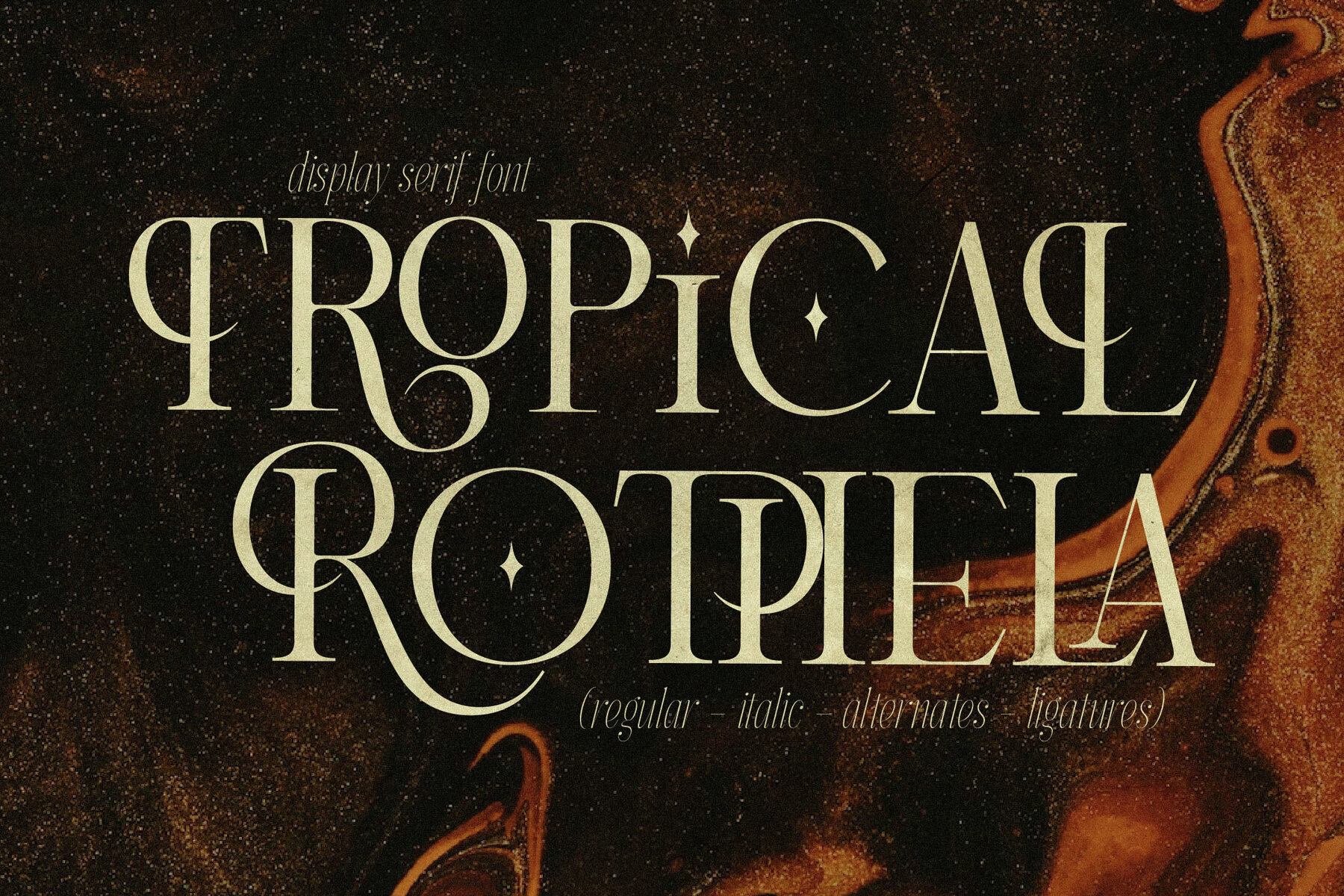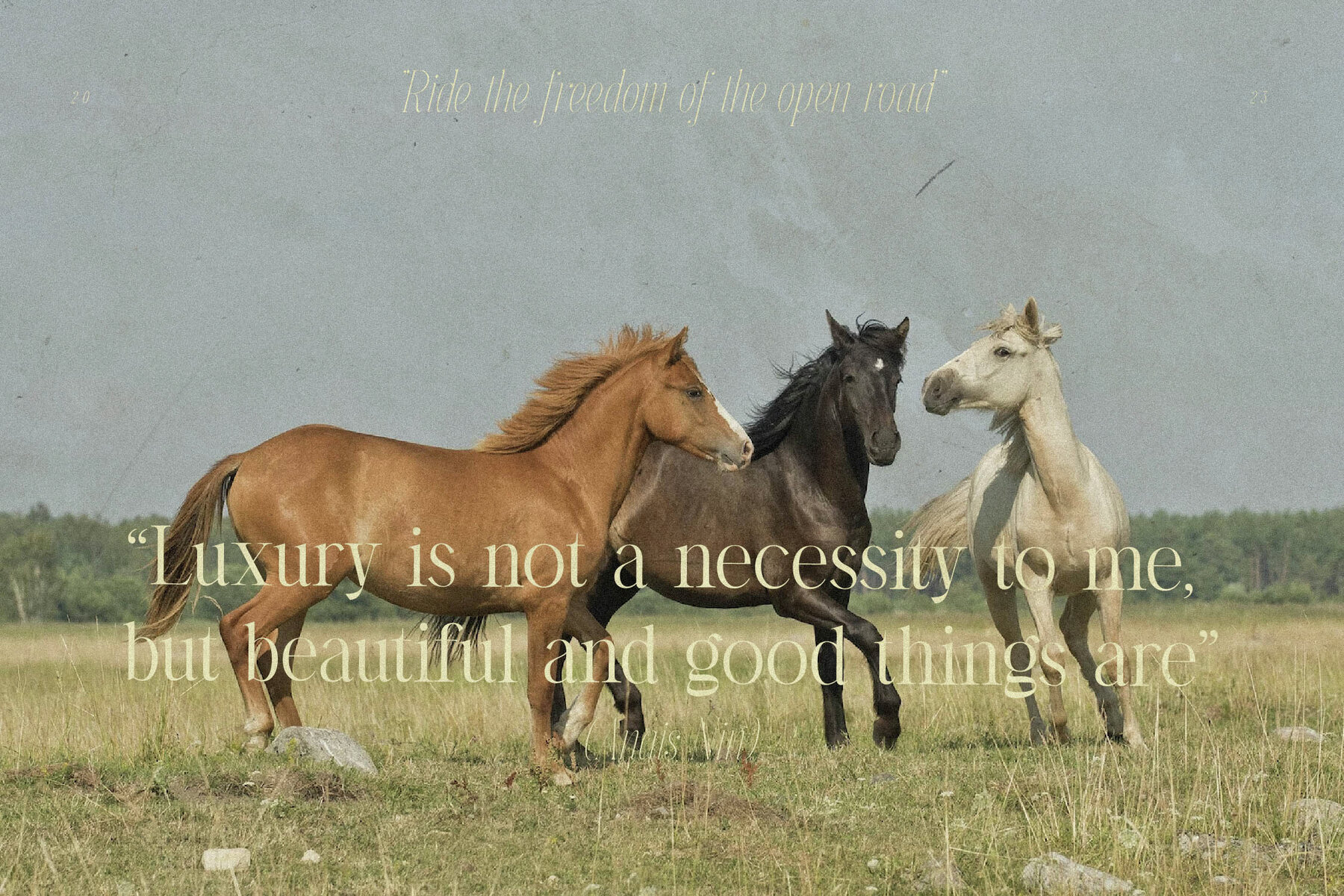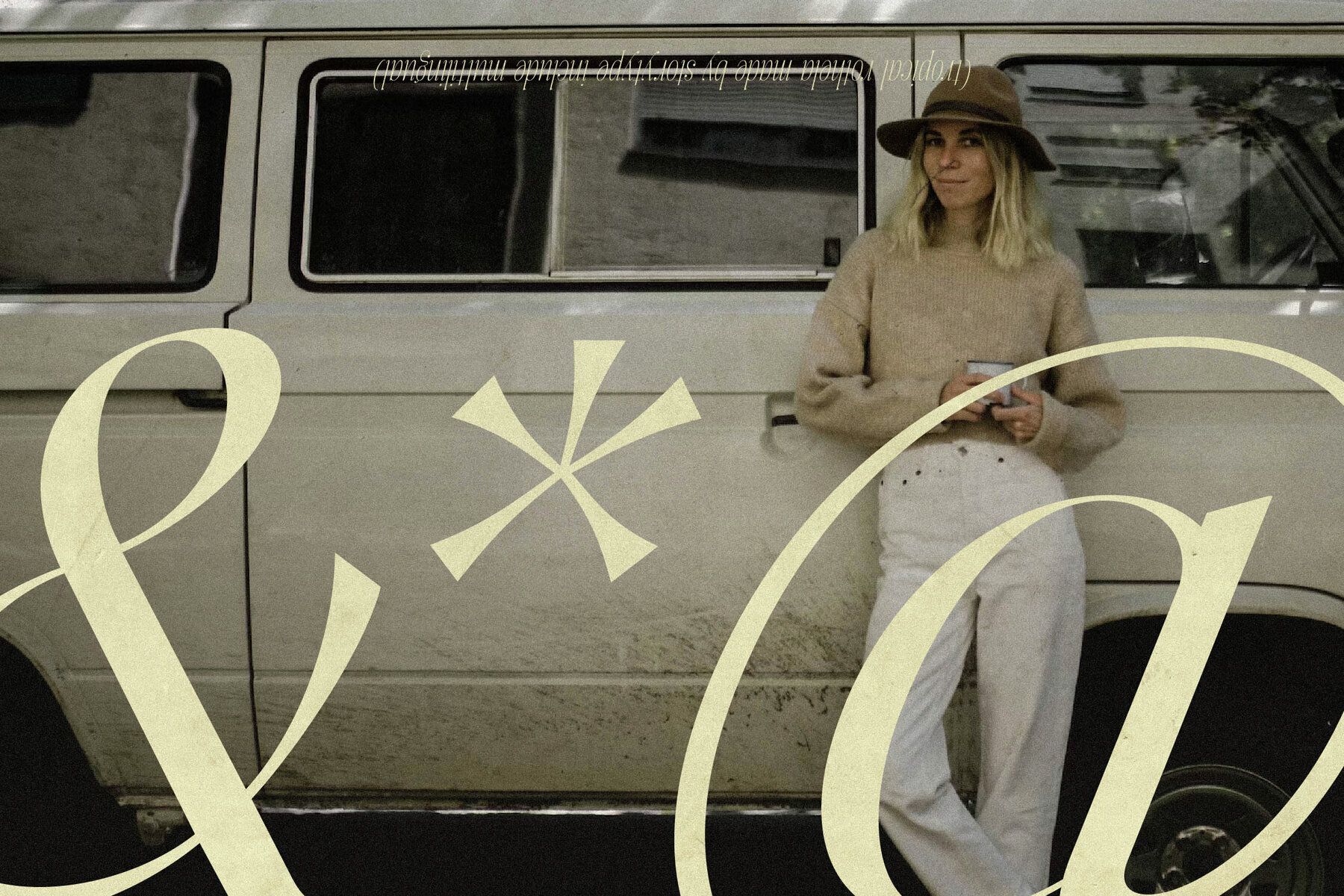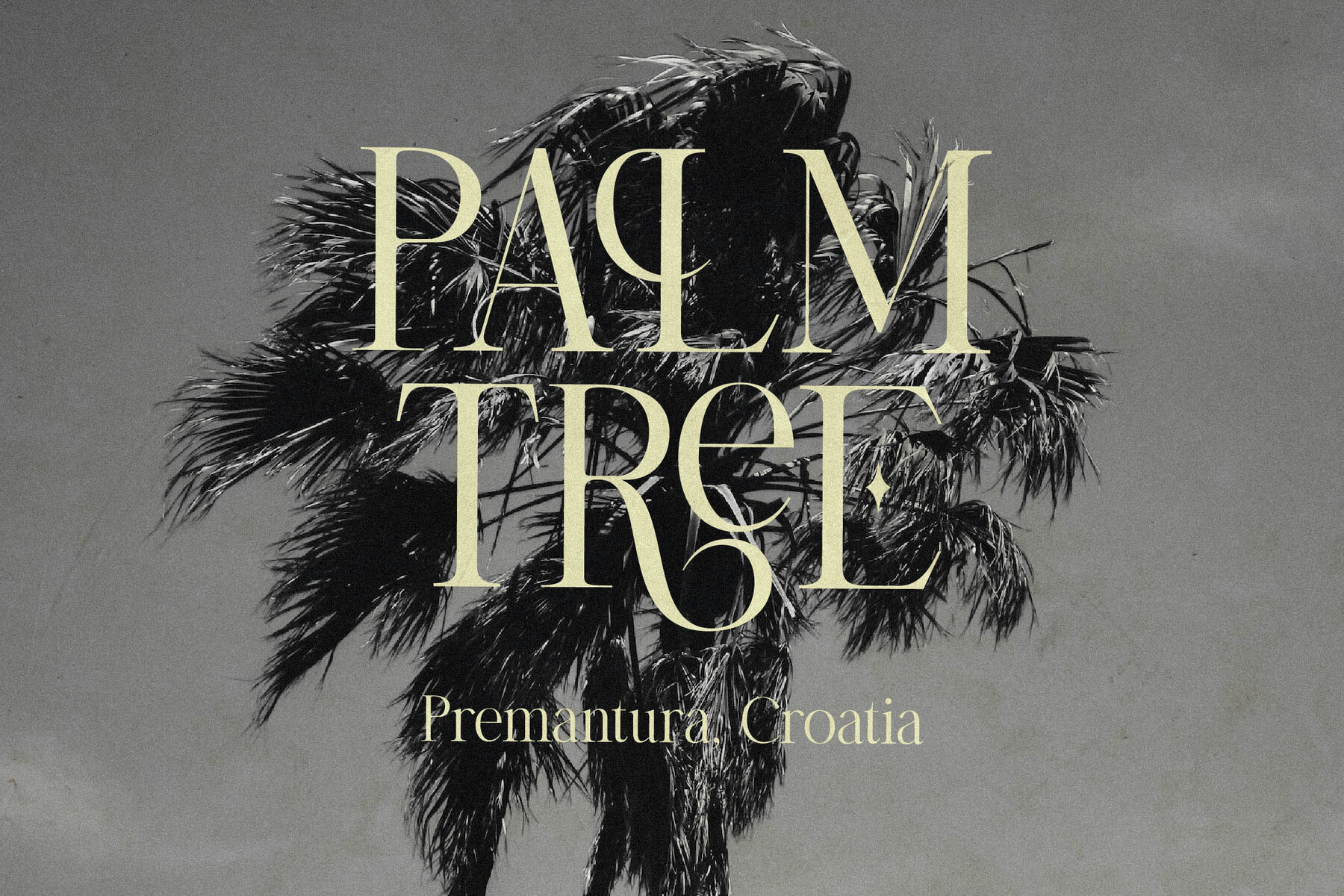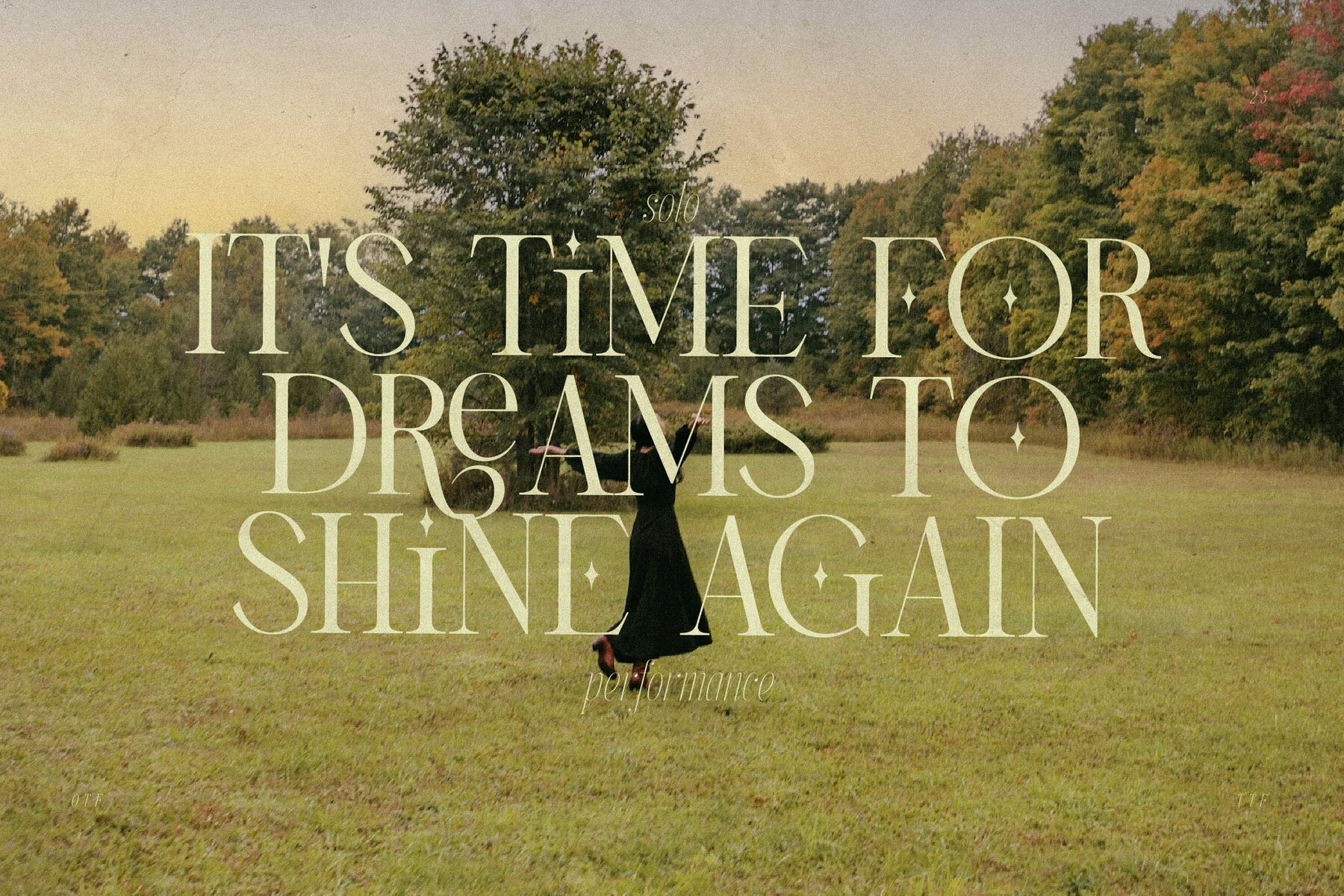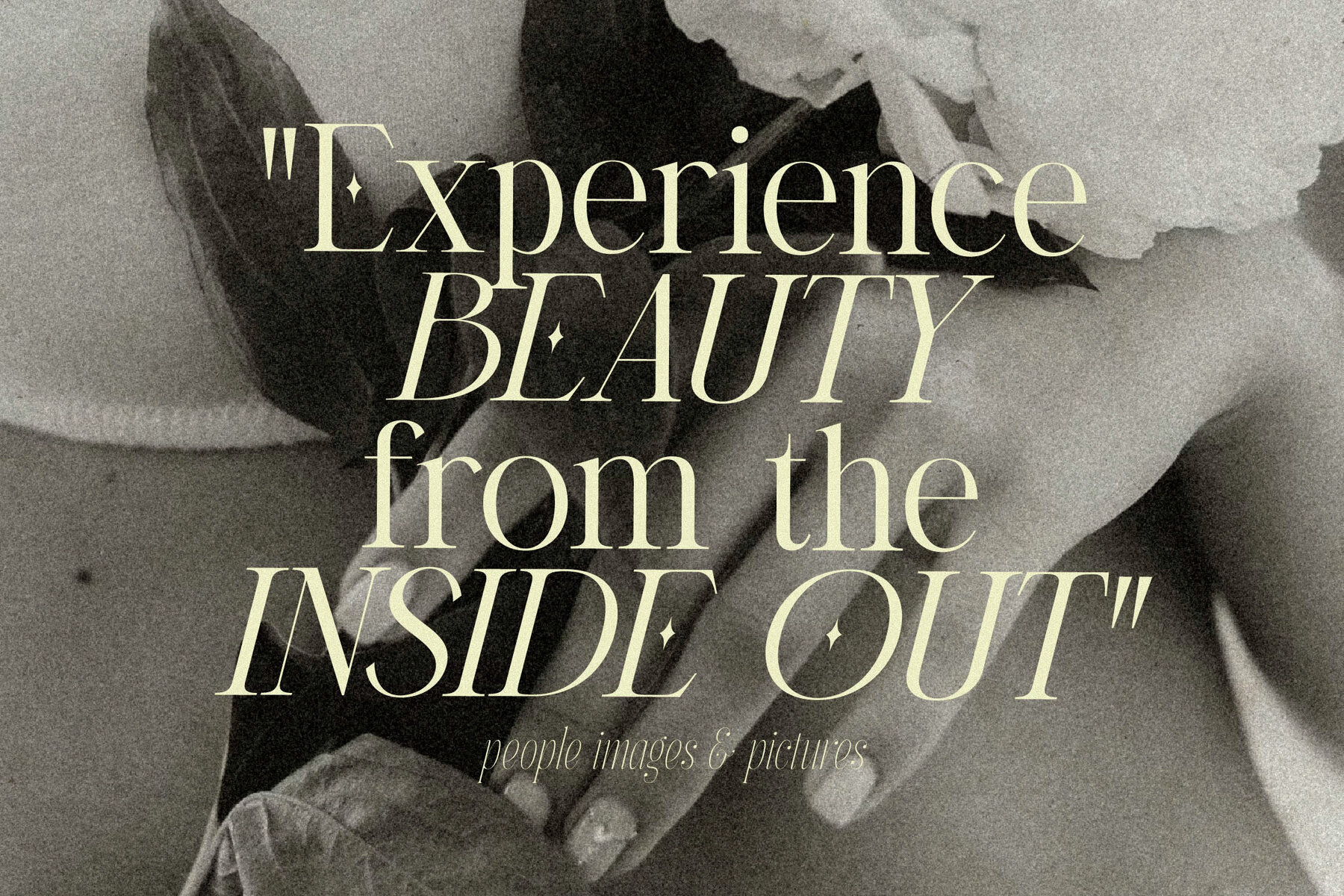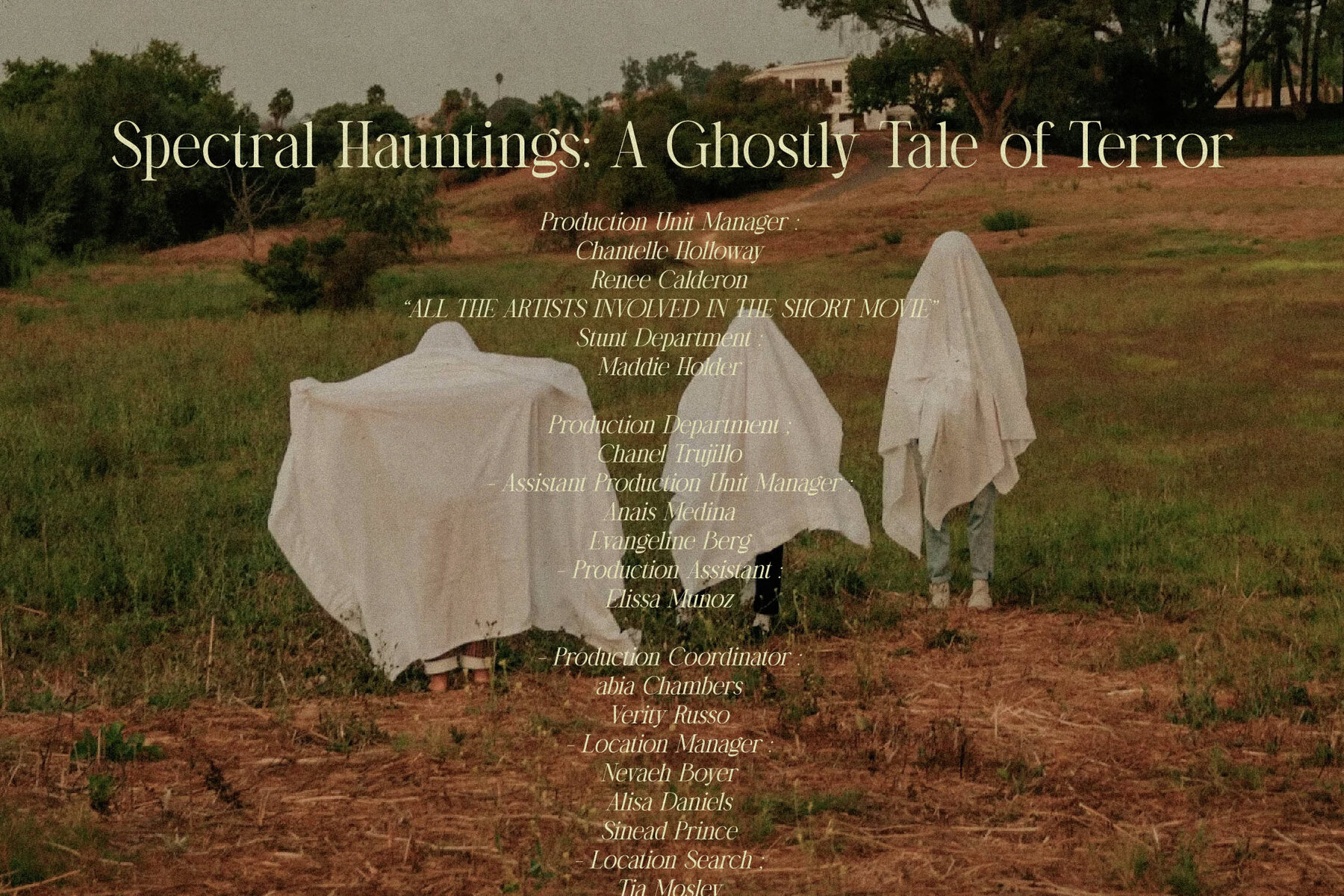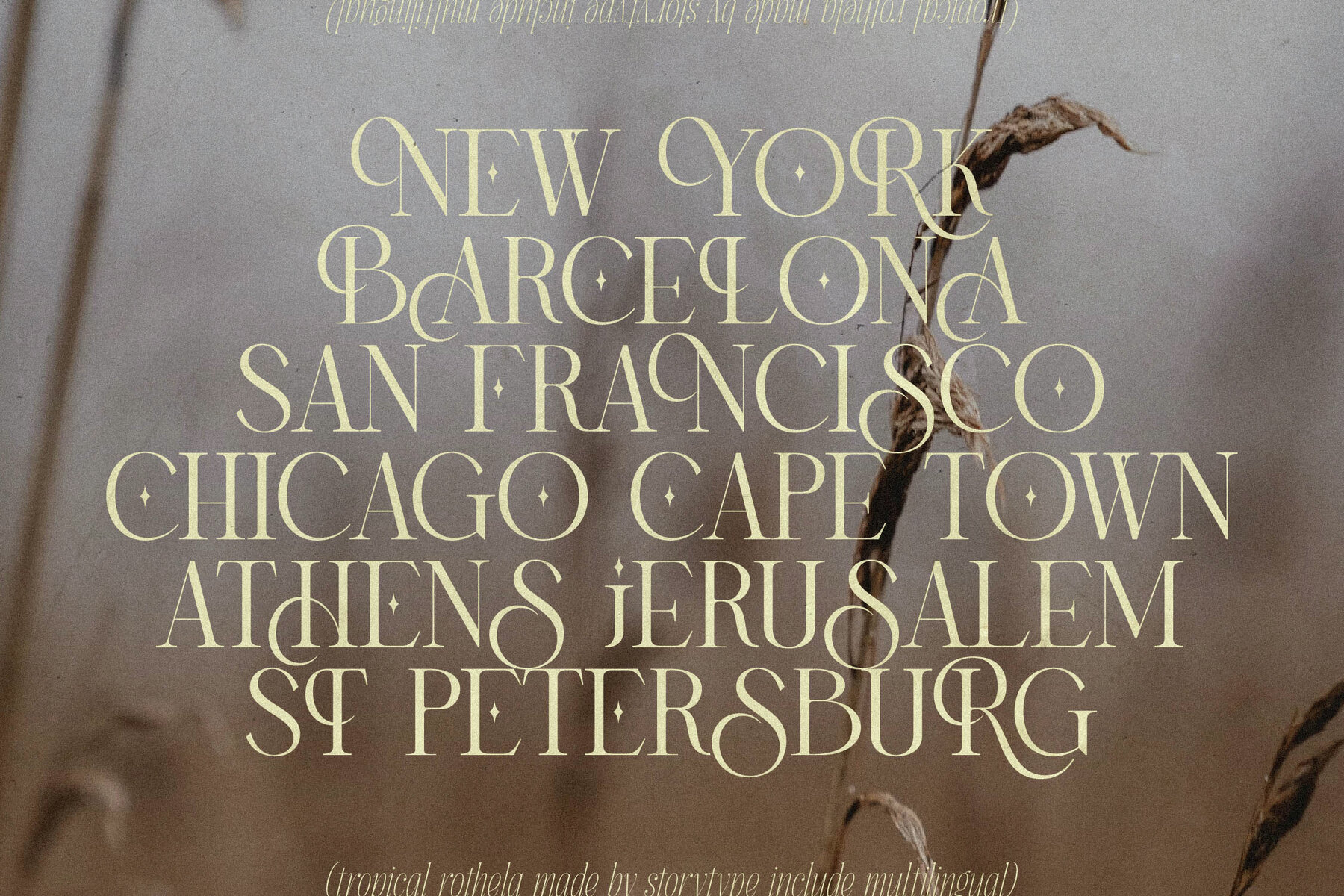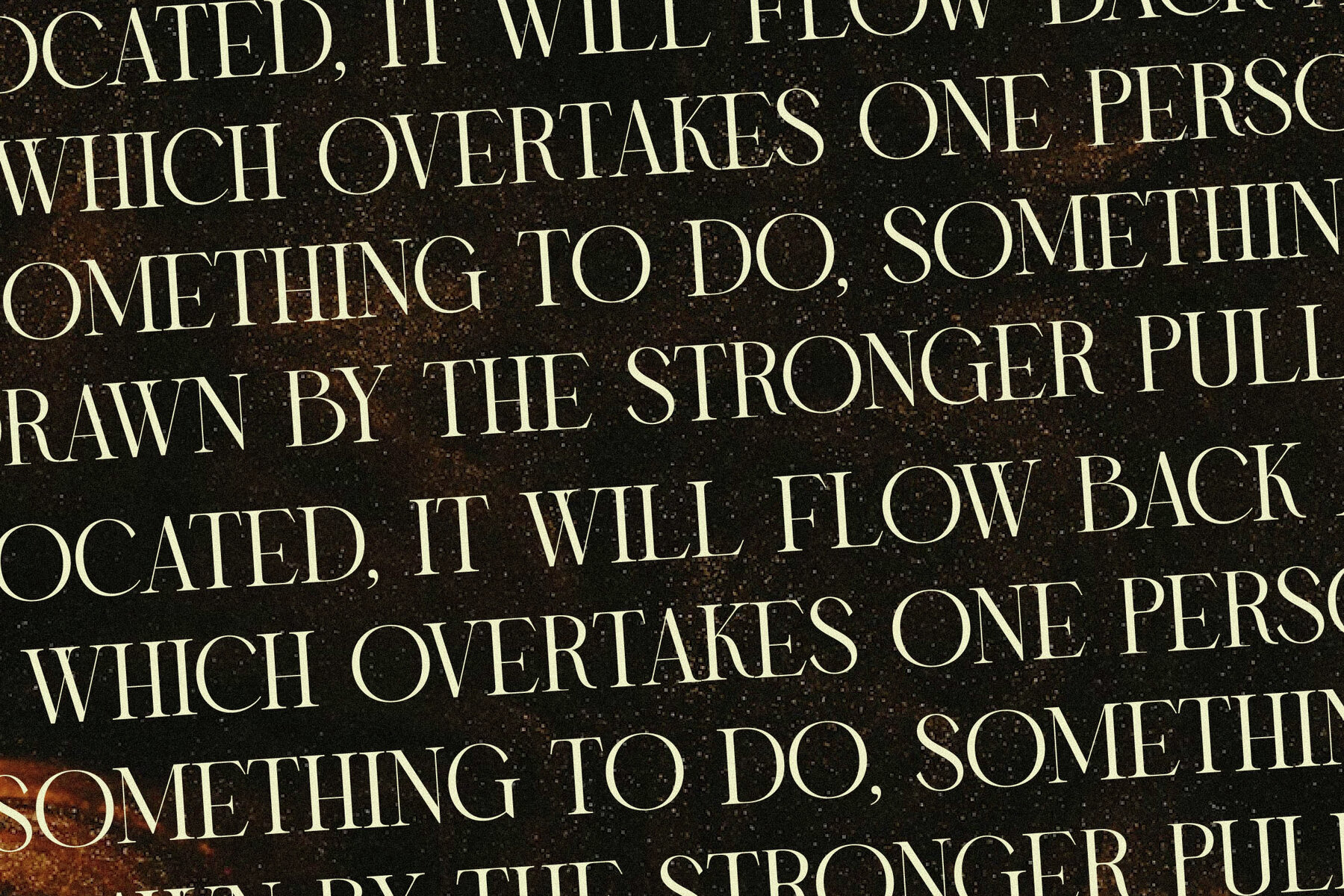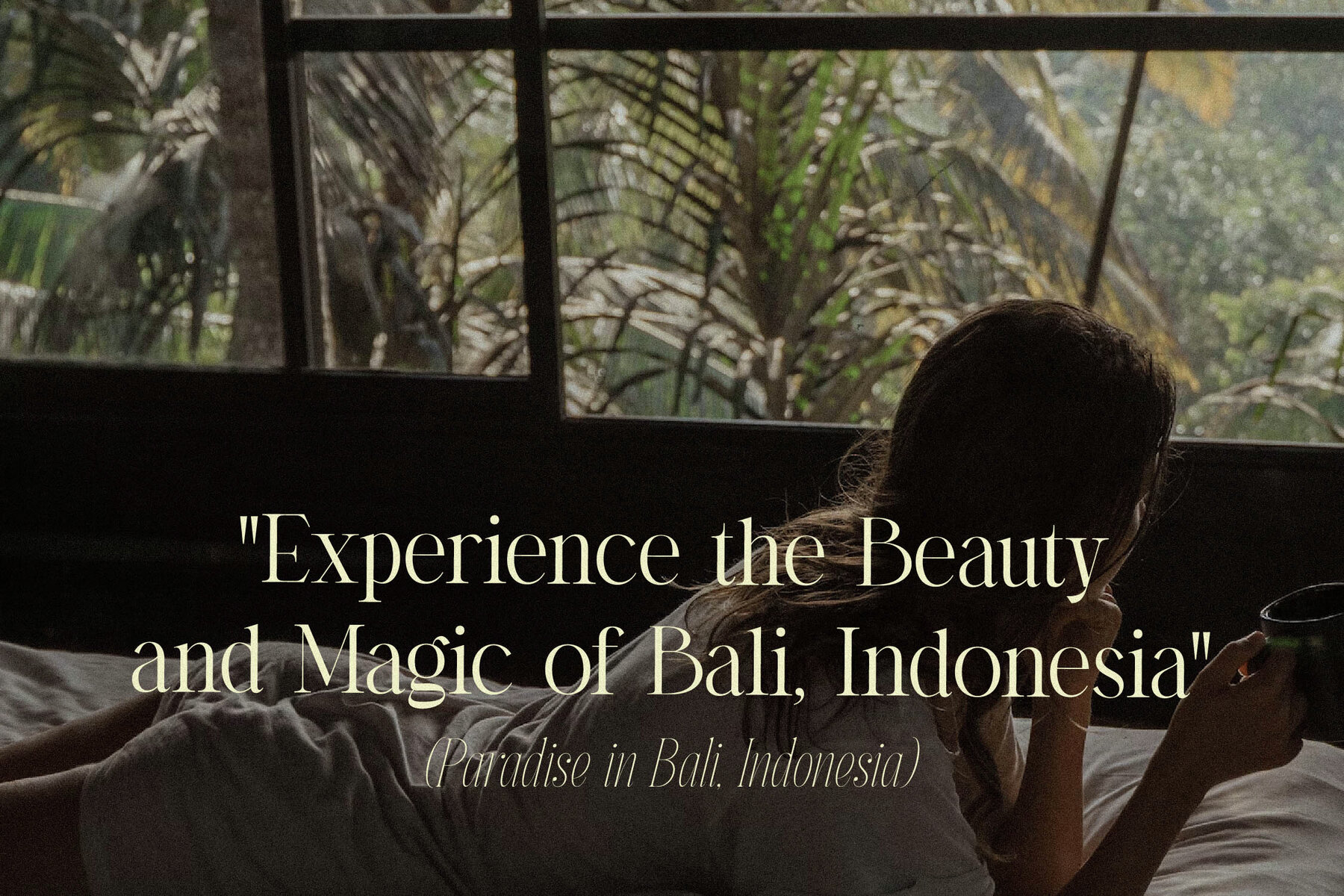
Tropical Rothela Font
Tropical Rothela is a sophisticated serif font blending modern appeal with timeless style, crafted with precision by Storytype. Its versatility makes it ideal for creating striking logos, book and film titles, fashion branding, magazines, and more. The clean and luxurious design of this typeface ensures any project looks both refined and contemporary.Tropical Rothela: Elegant Serif Font for Modern Creations